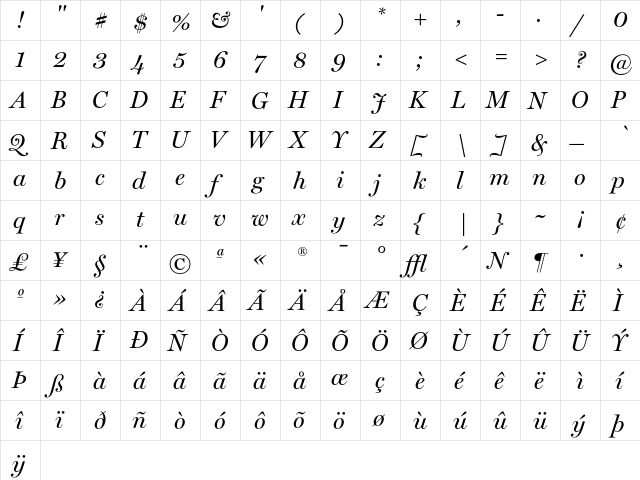
Miller DisplayItalic
Design Context for Miller Typeface
Miller is built around its visual character rather than neutral utility — its distinctive forms are designed to make an impression at display sizes. The dynamic lean of this cut emphasises speed and emphasis in any layout.
Font Pairing: Pair with a clean neutral sans-serif for body copy to let Miller's character lead without overwhelming the composition.
Pro Tip: Treat Miller as the centrepiece of your typographic hierarchy. One strong heading set in a decorative face can carry an entire layout.